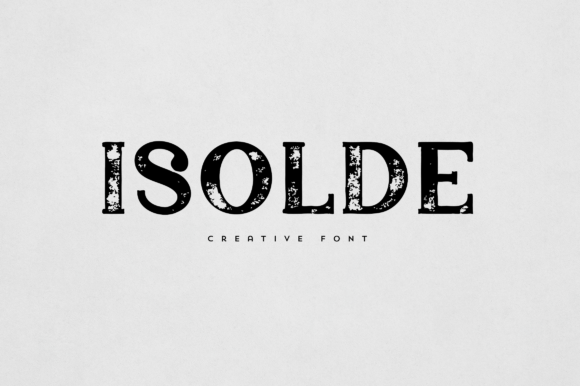
Introducing Isolde Font - A Journey Through Elegance and Originality
Embark on a typographic voyage with Isolde Font, a display font family that captivates the senses and transforms your designs into masterpieces. This font family is not just a collection of letters and symbols; it's an artistic expression that will elevate your projects to new heights of visual allure.
With its graceful curves, delicate strokes, and timeless beauty, Isolde Font is the perfect choice for those seeking a font that speaks volumes. Its versatile nature allows it to seamlessly adapt to a myriad of design projects, from logos and branding to headlines and homeware designs. Whether you're a seasoned designer or just starting your creative journey, Isolde Font will become your trusted companion, guiding you towards typographic brilliance.
Step into a world where elegance meets originality, where every letter carries a story, and every word commands attention. Let Isolde Font be your muse, inspiring you to create designs that resonate with your audience and leave a lasting impression.
But Isolde Font is more than just a beautiful font; it's an extension of your creative vision. Picture your designs adorned with Isolde's sophisticated charm, captivating your audience with its intricate details and timeless appeal. Your branding projects will exude a sense of luxury and distinction, while your product packaging will command attention on shelves, demanding to be noticed.
Unleash your creativity and let Isolde Font transform your designs into works of art. Dive into a world of endless possibilities, where your imagination knows no bounds. Explore the limitless potential of this font family and witness the magic it weaves into your projects.